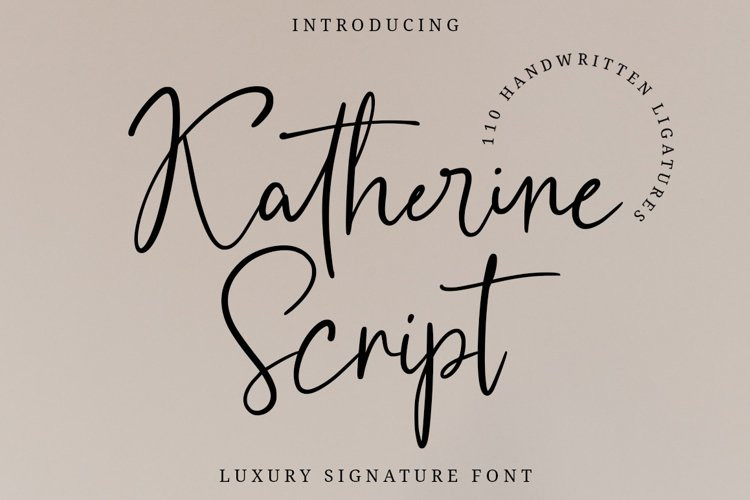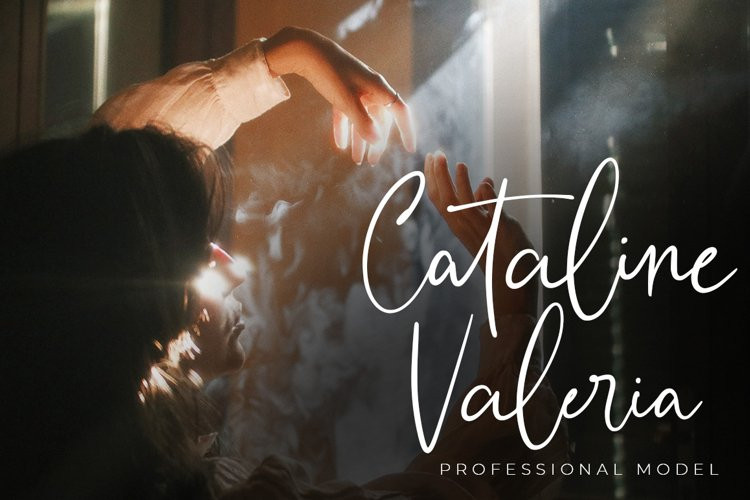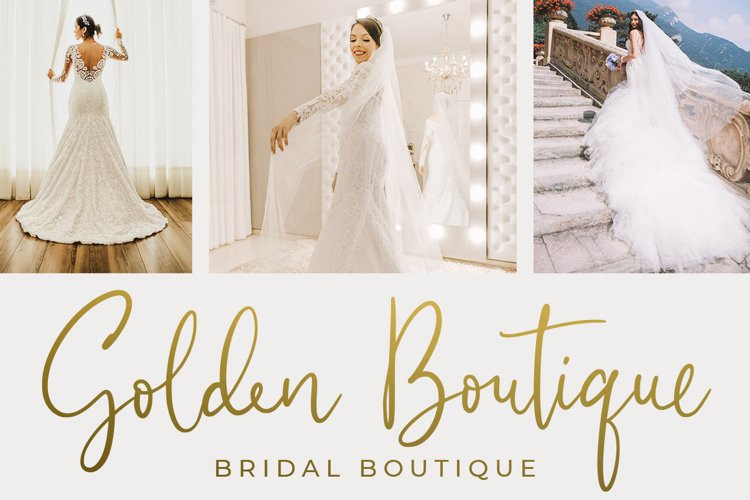
Katherine Script Font
Katherine Script FontIntroducing the new Katherine Script luxury signature font with smooth handwritten flows. Katherine Script font perfect for logos, wedding stationery, cards, gift designs, photography, watermark, product packaging and handwritten quotes. This font includes 110 handwritten ligatures, full set of uppercase and lowercase letters, multilingual symbols, numerals and punctuation.